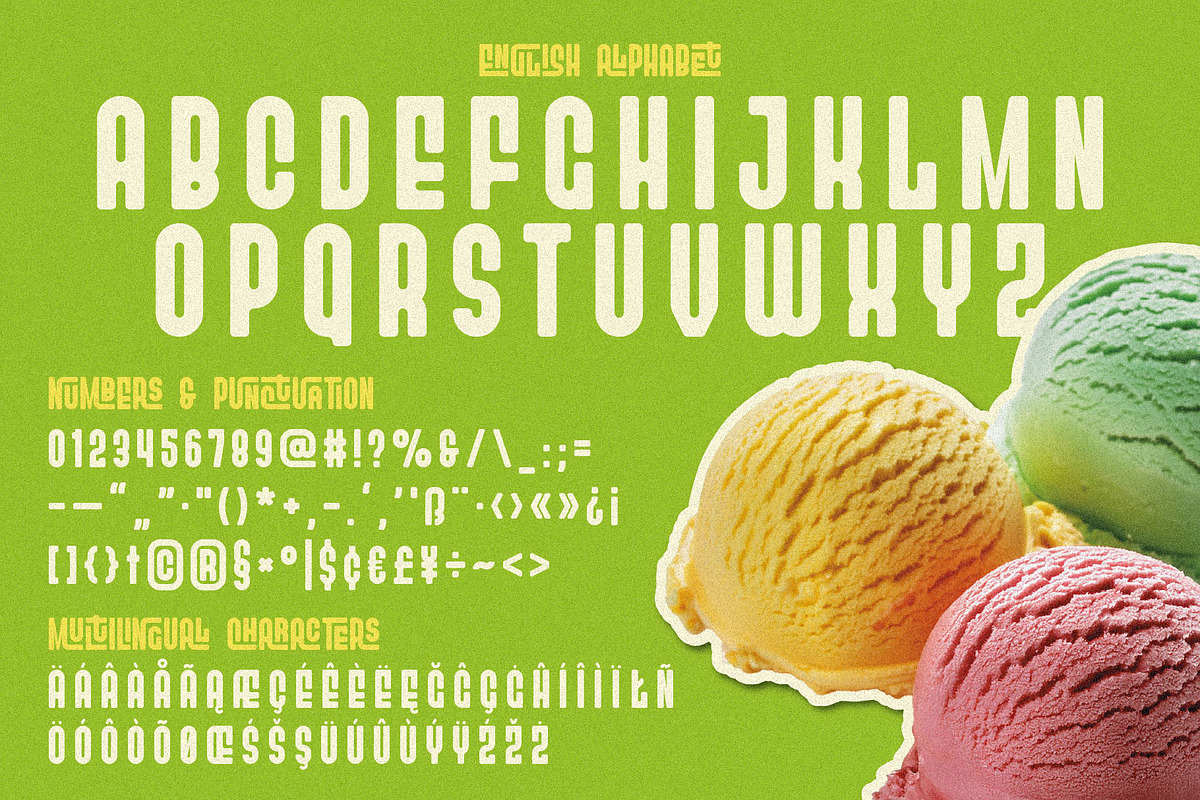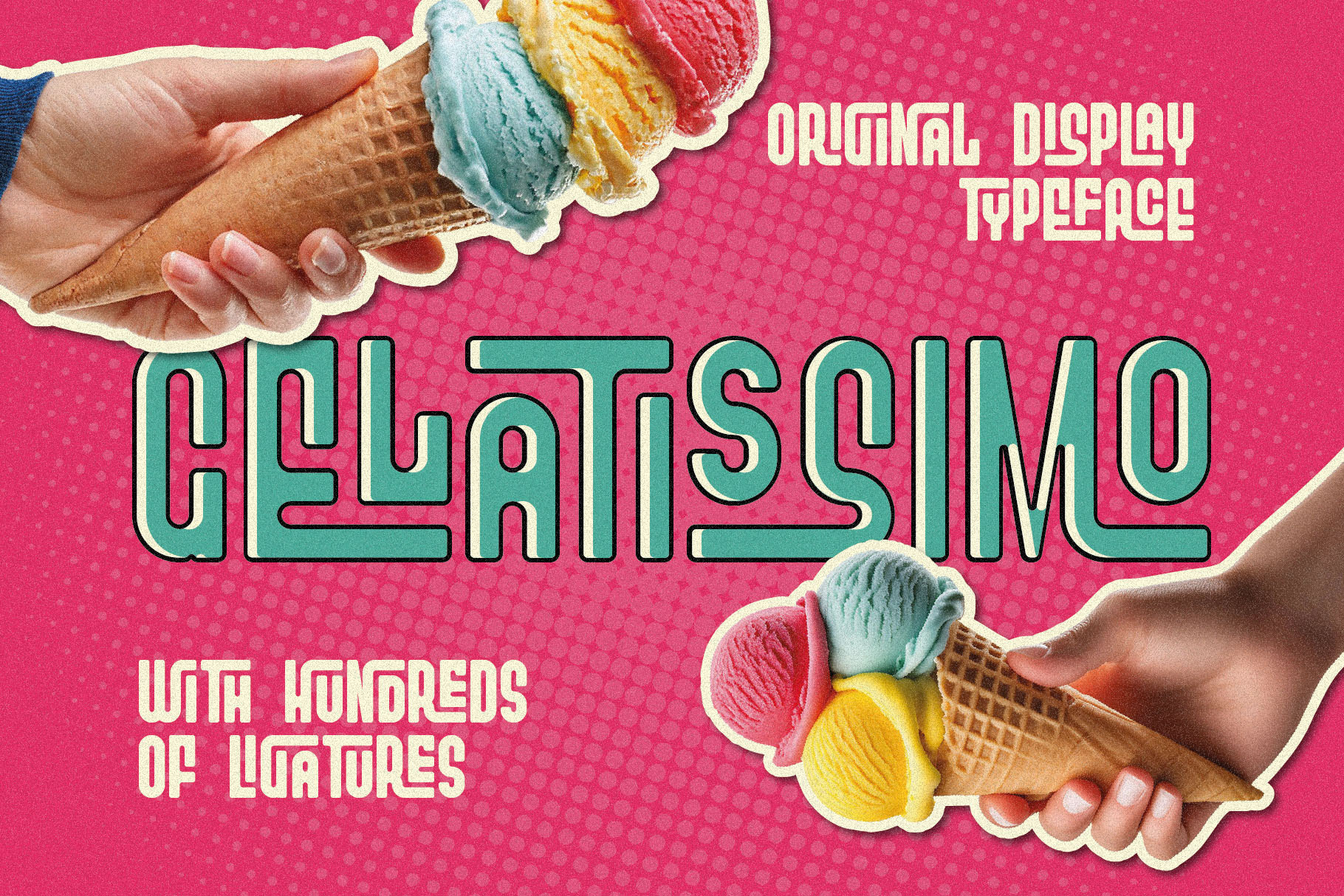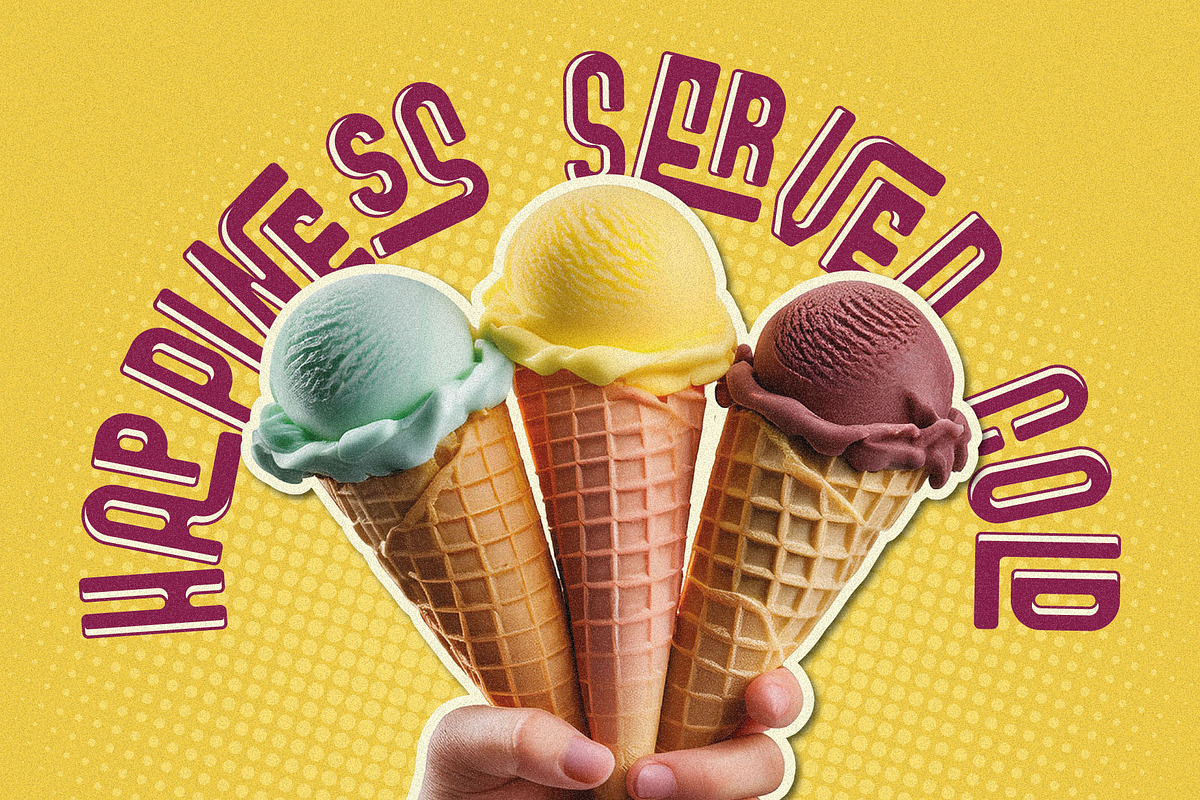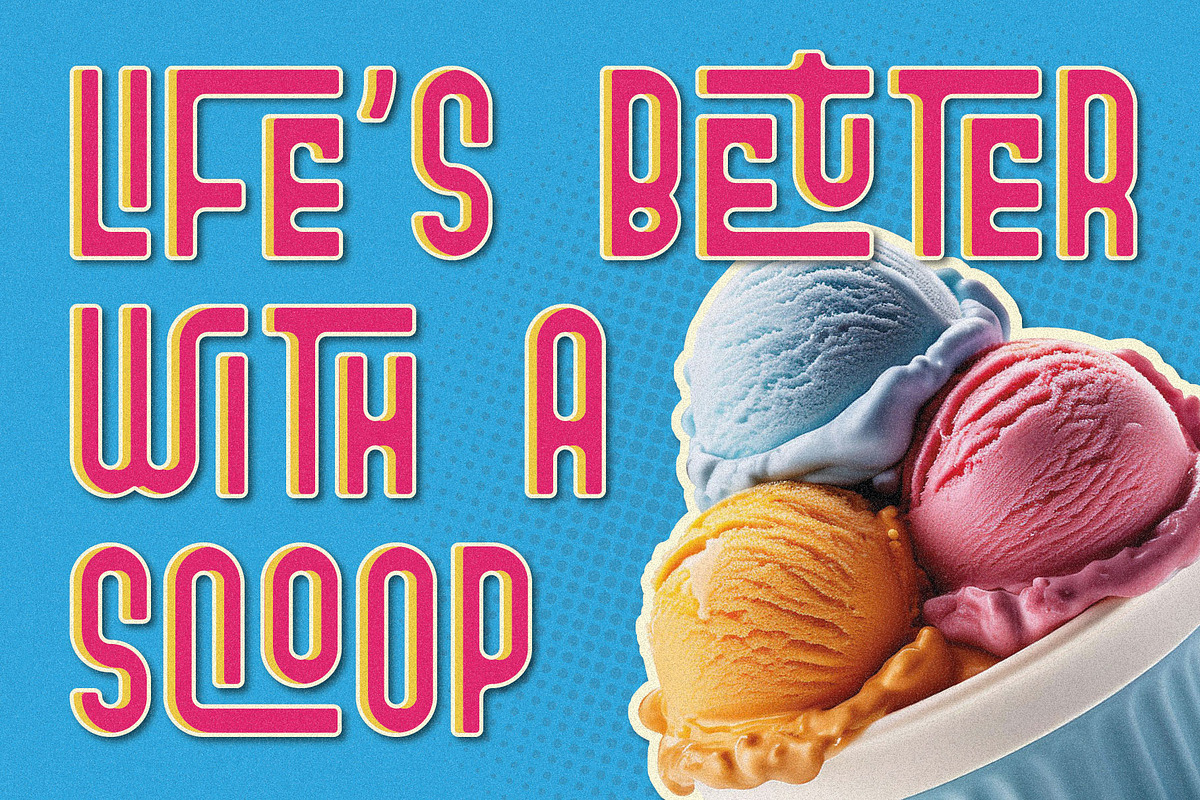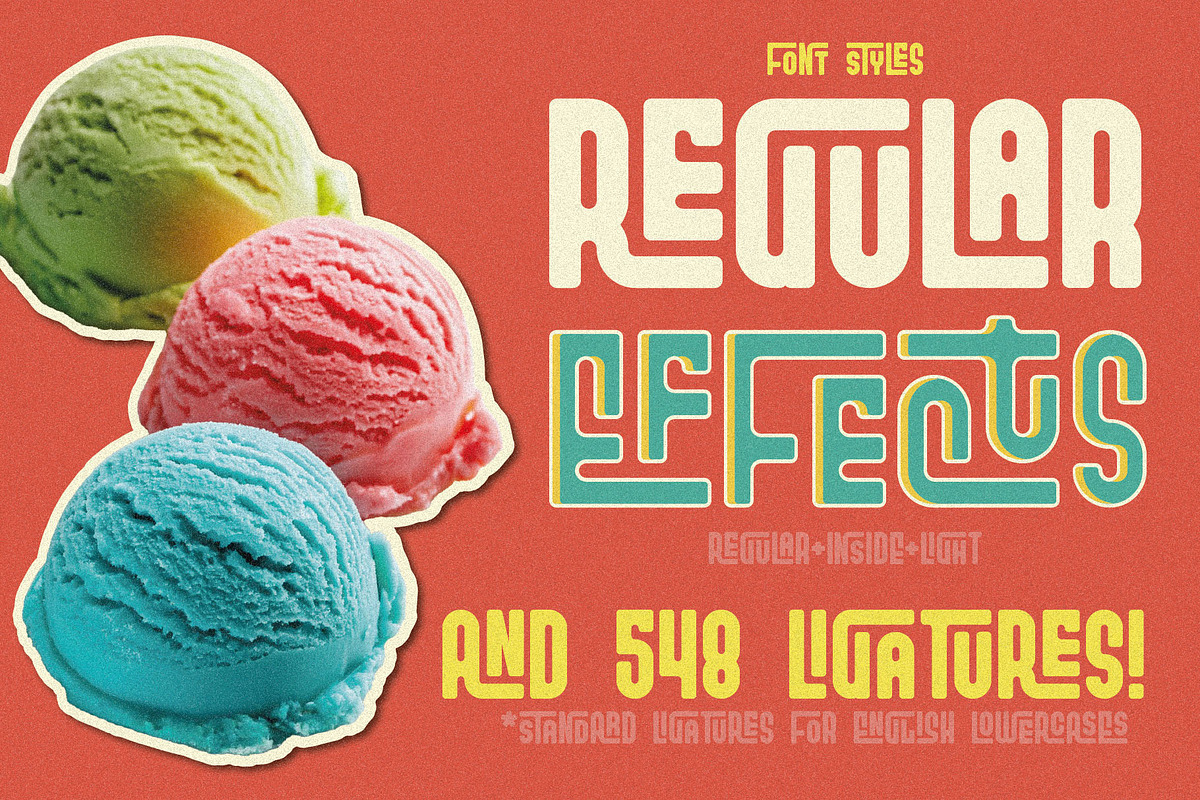
Gelatissimo Ligature Font
Unique, playful, bold, retro, condensed & ligature display sans serif font. Comes with multilingual support & 458 ligatures + 3 font versions - great for your new logo, monogram or branding project.
- 3 font versions - regular & inside & light
- Multilingual support & 548 ligatures
- Great for your new logo, monogram or branding project